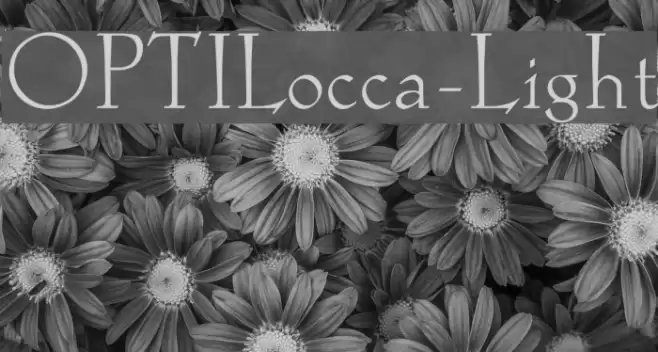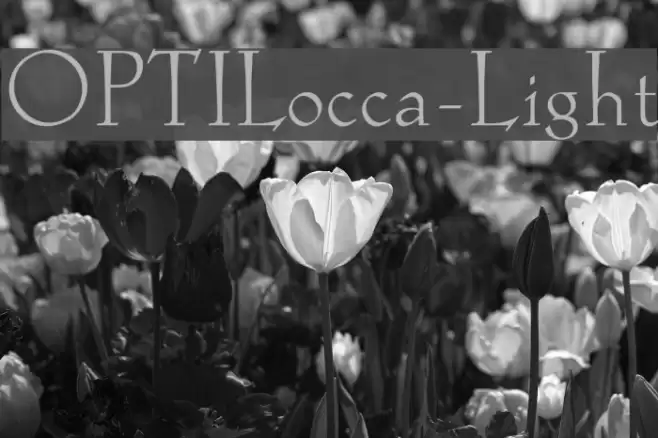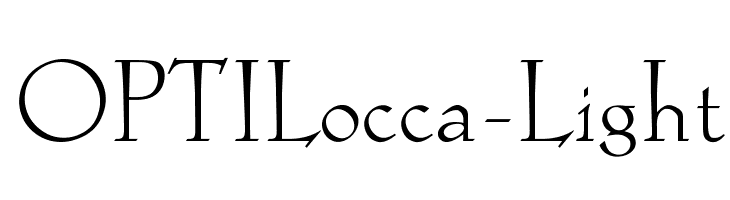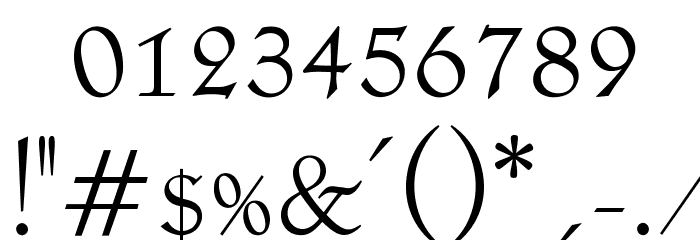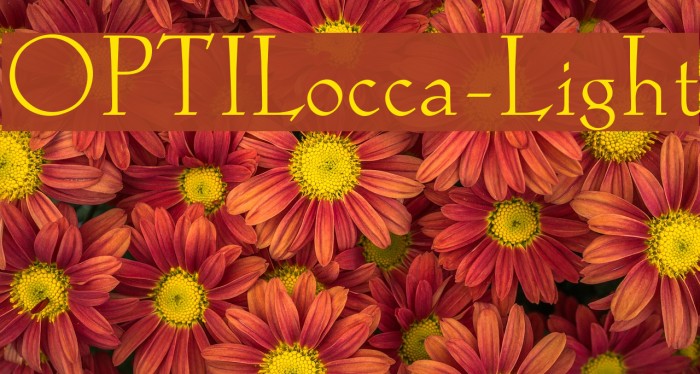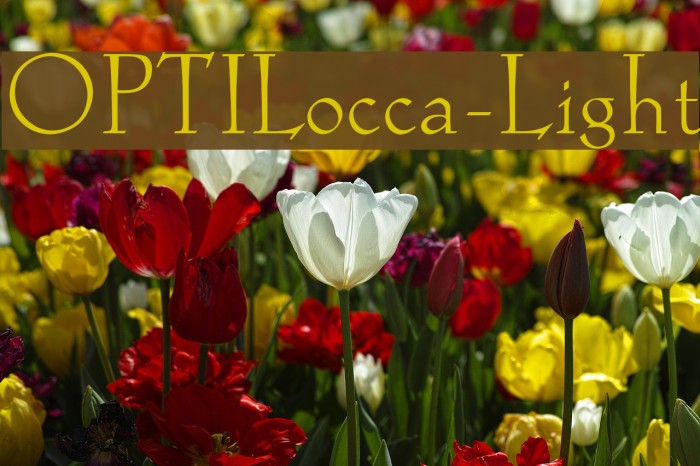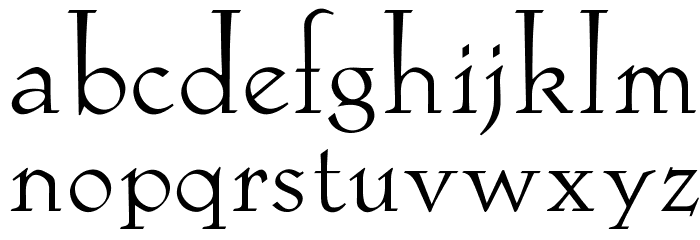
OPTILocca-Light Font
OPTILocca-Light Description
This font presents a refined and elegant serif style, characterized by its thin and graceful strokes. The uppercase letters are tall and slightly narrow, with subtle curves that add a touch of sophistication. The lowercase letters maintain a consistent style, with smooth transitions and a harmonious flow. The numerals are well-proportioned, aligning perfectly with the overall aesthetic. Special characters are thoughtfully designed, complementing the font's classic appeal. The font's light weight and delicate serifs make it suitable for projects that require a touch of elegance and readability.
A refined serif font with elegant, thin strokes and a classic aesthetic from Uncategorized fonts.
- Proposed Projects: Ideal for wedding invitations, luxury branding, editorial design, and elegant stationery.
- Weight: Light
- Contrast:
- Overall Style: Classic